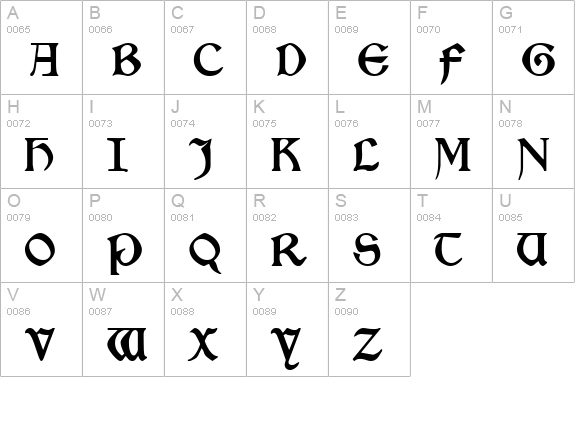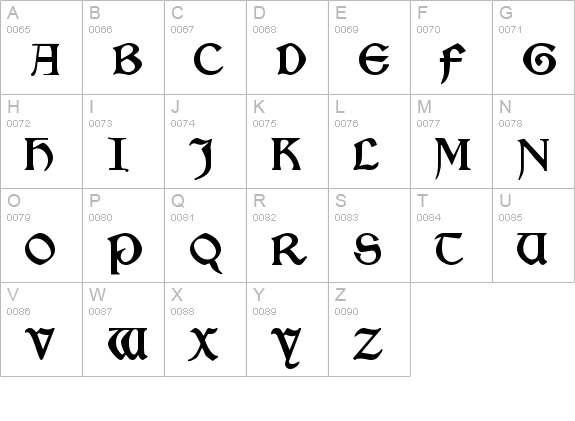
Kelmscott Font Details
Kelmscott font is a breathtakingly beautiful typeface that exudes elegance and sophistication. Its timeless design and intricate details make it a perfect choice for various artistic and creative projects. The letters are meticulously crafted with delicate curves and precise angles, resulting in a harmonious balance between classic and contemporary aesthetics. This font captures the essence of traditional calligraphy, with its graceful strokes and graceful flourishes. Each letter is imbued with a sense of craftsmanship and artistic flair, creating a visually stunning display of typographic art. One of the most remarkable aspects of Kelmscott font is that it is freely available to download at FontsMarket.com. This means that designers, artists, and typophiles alike can effortlessly access and utilize this extraordinary typeface without any financial constraints. The generosity of this offering allows for the widespread use and appreciation of Kelmscott font, making it accessible to all who seek to enhance their creative endeavors. Whether you're working on a wedding invitation, a book cover, or a branding project, Kelmscott font will undoubtedly elevate your design to new heights. Its versatility and timeless appeal make it a perfect choice for a wide range of applications, from elegant and refined to bold and expressive. Incorporating Kelmscott font into your creative projects will not only add a touch of sophistication but also reflect your impeccable taste and attention to detail. Its unique and captivating design will effortlessly captivate the viewer's eye, leaving a lasting impression. So, why wait? Download Kelmscott font from FontsMarket.com and unlock the unlimited potential that this exceptional typeface holds. Let your creativity soar as you explore the endless possibilities and create stunning designs that truly stand out. Kelmscott font is a gift to the design community, freely available for all to enjoy and utilize in their artistic pursuits.